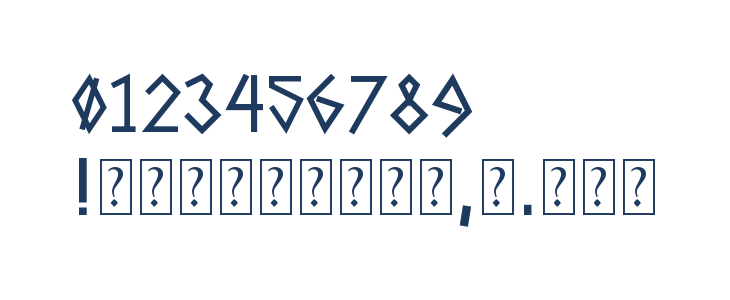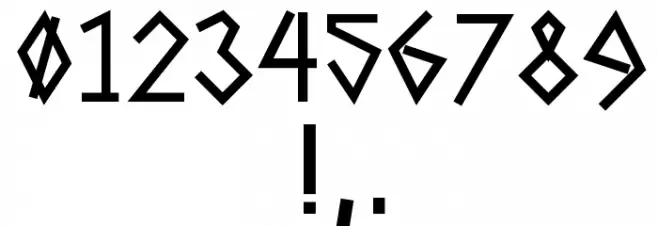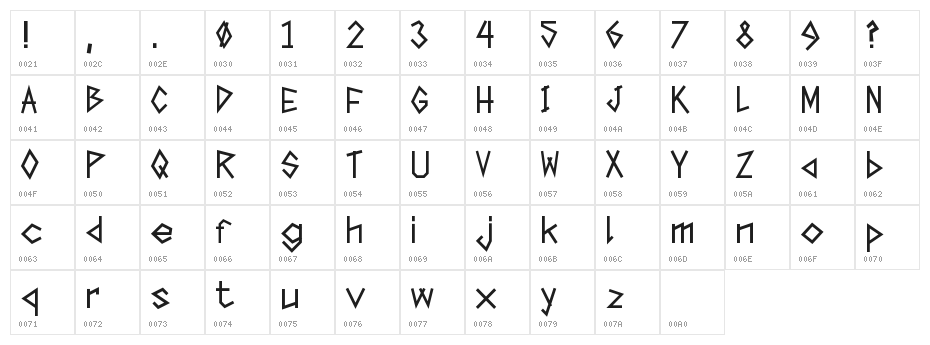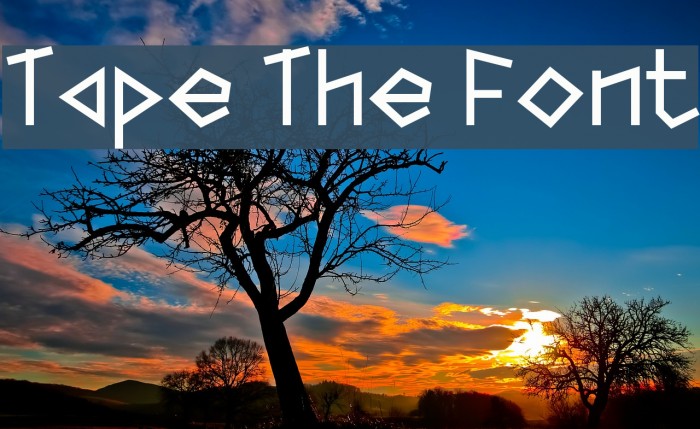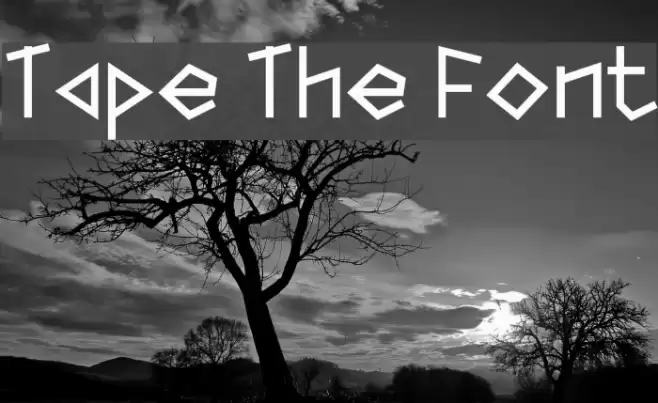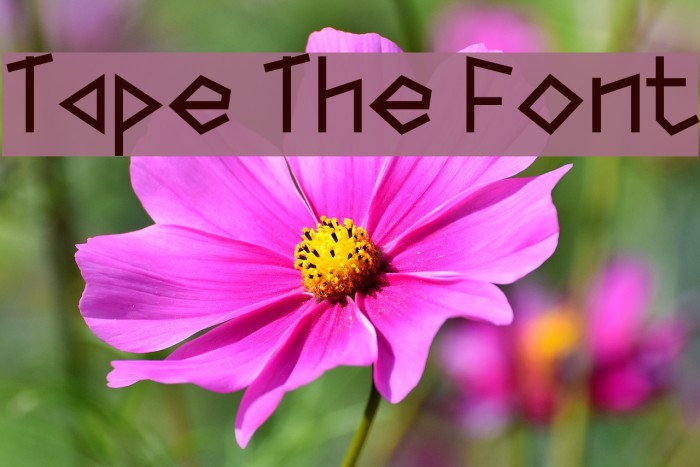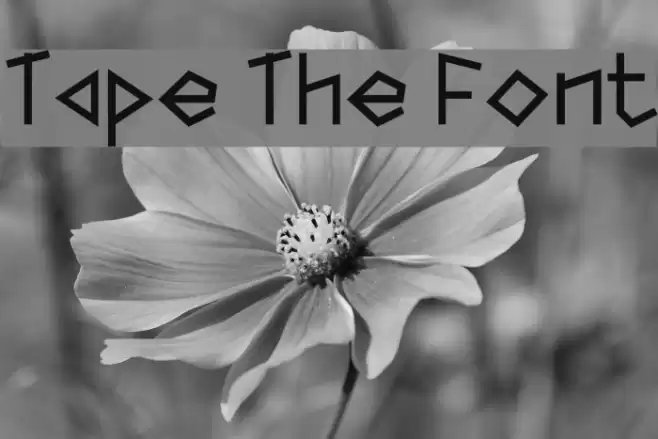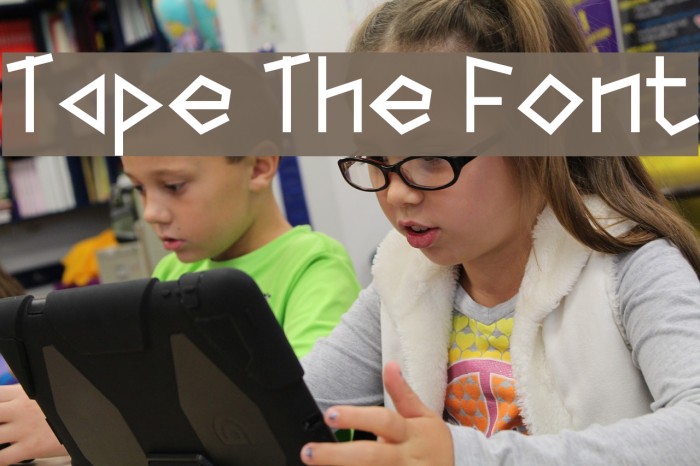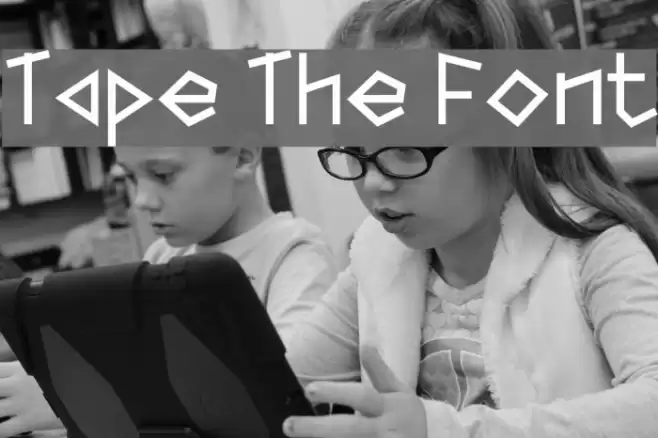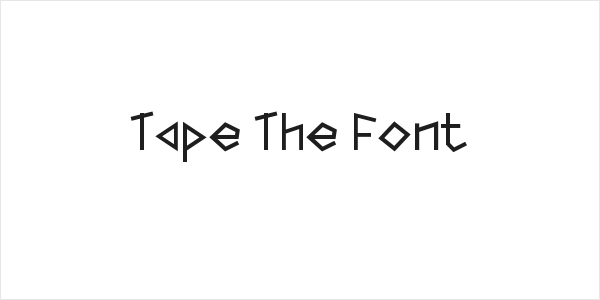
Tape The Font Font
Tape The Font Description
This font features a unique, angular design reminiscent of cut-out tape strips, giving it a distinct and edgy appearance. The characters are bold and geometric, with sharp angles and straight lines dominating the design. Each letter maintains a consistent height, contributing to a uniform look across the alphabet. The uppercase and lowercase letters share similar design elements, enhancing the cohesive style. Numbers and special characters follow the same angular theme, ensuring a harmonious overall appearance. The font's boldness and striking design make it ideal for attention-grabbing projects.
TAPE-THE-FONT UPPERCASE
TAPE-THE-FONT LOWERCASE
TAPE-THE-FONT OTHER CHARS
| Proposed Projects | Ideal for posters, album covers, branding, and any project requiring a bold, modern aesthetic. |